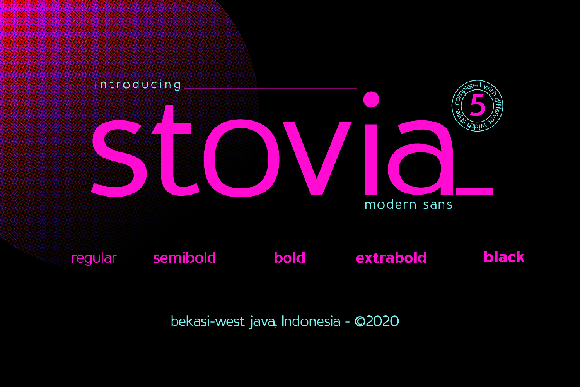
Unveil the Allure of Stovia: An Exquisite Sans Serif Font Symphony
Immerse yourself in the world of Stovia, a modern sans serif font that radiates elegance and sophistication. Designed by the visionary artists at inkstypia, Stovia captivates with its clean lines, harmonious curves, and a touch of timeless charm.
With Stovia as your creative ally, you'll embark on a journey of boundless possibilities. Craft captivating logotypes that exude professionalism and poise. Design stationery that whispers luxury and refinement. Create posters that command attention with their striking typography. Let Stovia be the cornerstone of your visual masterpieces, adding an air of sophistication to every project.
Visualize your words transformed into elegant compositions, each letter a work of art. Stovia's meticulously crafted glyphs dance upon the page, creating a symphony of visual harmony. Its letterforms possess a timeless quality, ensuring your designs transcend fleeting trends and remain captivating for years to come.
Whether you're a seasoned designer or just starting your creative journey, Stovia is the perfect font to elevate your work. Its versatility shines in both long text and logotypes, effortlessly adapting to your creative vision.
Indulge in the beauty of Stovia and witness how it elevates your designs to new heights. Let its graceful lines guide your imagination and create masterpieces that resonate with your audience. Experience the allure of Stovia today and unveil the true power of typography.